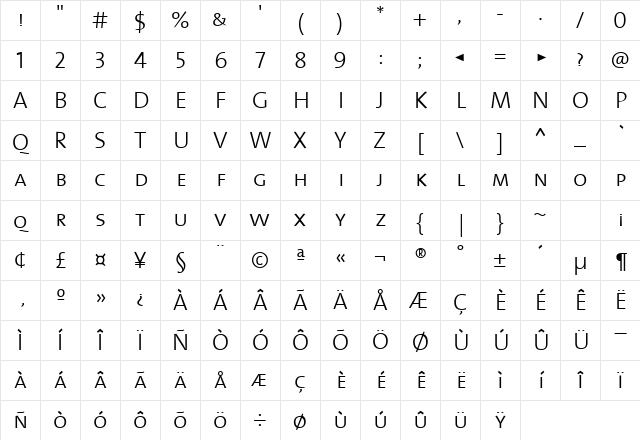
TheMixLight-Caps is a composed and adaptable typeface that performs quietly and consistently across a wide range of design contexts. Its slender proportions lend an understated elegance to any composition.
Pro Tip: Use TheMixLight-Caps in both headline and body roles to test its range before committing to a single application.